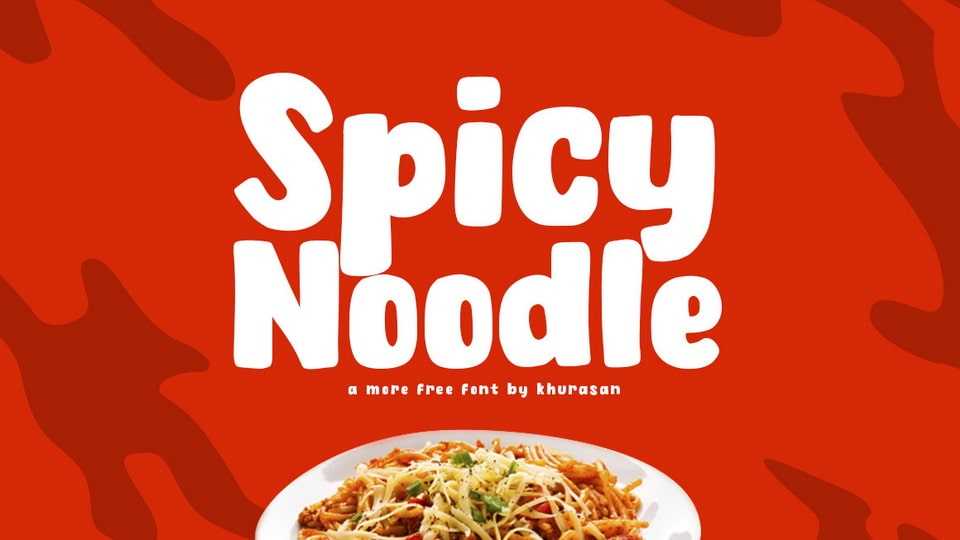
Download Spicy Noodle font, a cute and warm hand lettered marker typeface that will fill your designs with a sense of playful charm. Its clean and easy-to-read letterforms ensure that your text remains legible, even at various sizes.